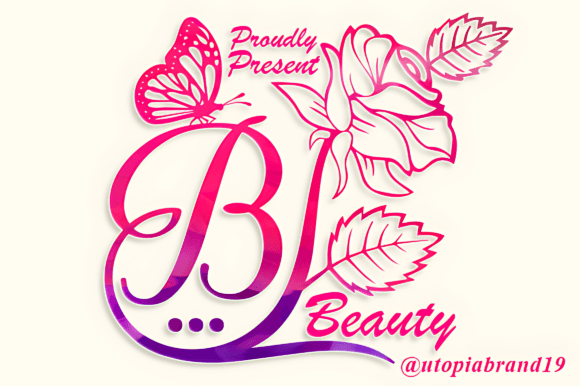
Unleash Your Creativity with the Beauty Flower Monogram Font
Have you ever sat down with a blank page and a vision for something beautiful, only to be stuck on finding the perfect font to bring it to life? I know I have! But what if I told you that there’s a font that’s not only stunning but also designed to make your creative process a breeze?
Introducing the Beauty Flower Monogram Font, a gorgeous and elegant decorative font that’s perfect for adding a touch of whimsy to your designs. This lovely font features beautiful ornaments that will make your wedding invitations, social media posts, and greeting cards stand out from the crowd. For designers, the Beauty Flower Monogram Font is a valuable asset, offering a unique way to express their creativity and add a personal touch to their work.
Beauty Flower Monogram Font Key Features
- Unique Characteristics: The Beauty Flower Monogram Font features intricate floral patterns and delicate details, making it perfect for creating elegant and sophisticated designs.
- Monogram Options: The font includes a range of monogram options, allowing users to customize their designs with various letter combinations and arrangements.
Beauty Flower Monogram Font Review
Overall, I think the Beauty Flower Monogram Font is a beautiful and elegant font that would be perfect for wedding invitations, baby showers, or any other feminine occasion. ✨ The delicate flower details and intricate monogram designs make it a standout choice for anyone looking to add a touch of sophistication to their design.
- The monogram design is versatile and can be used to create a variety of different looks, from simple and classic to ornate and elaborate.
However, there are a few limitations to consider: ⚠️ The font may not be suitable for use in small sizes or for text-heavy designs, as the intricate details can become difficult to read. Additionally, the font may not be compatible with all design software or operating systems.
Overall, I would give the Beauty Flower Monogram Font 4 out of 5 stars. While it may have some limitations, it is a beautiful and versatile font that is perfect for a variety of different design needs.
For optimal results, use the Beauty Flower Monogram Font in combination with floral or garden-themed designs.
Use it to create custom invitations, branding, or packaging for flower shops, gardens, or outdoor events.